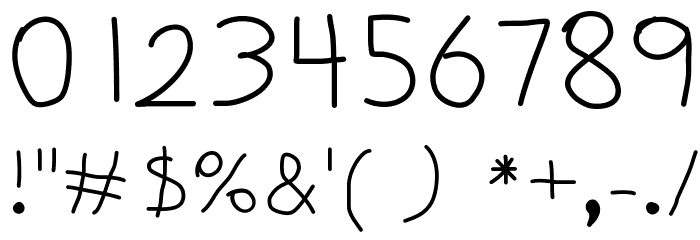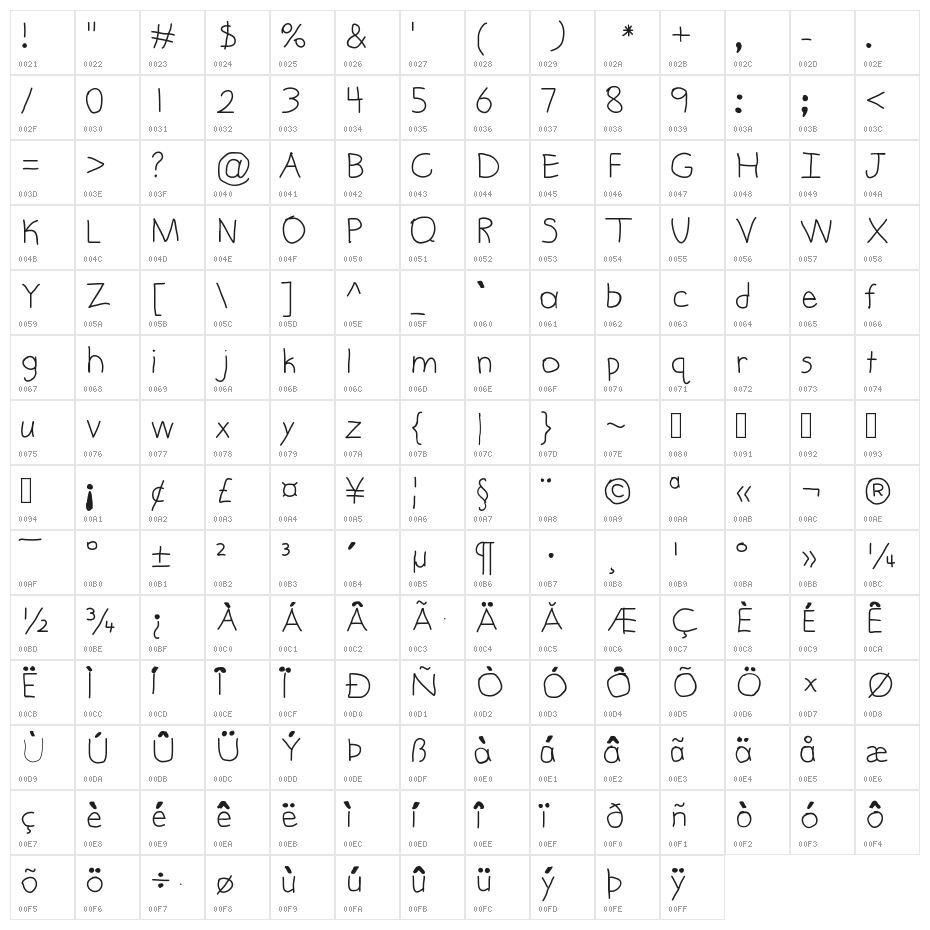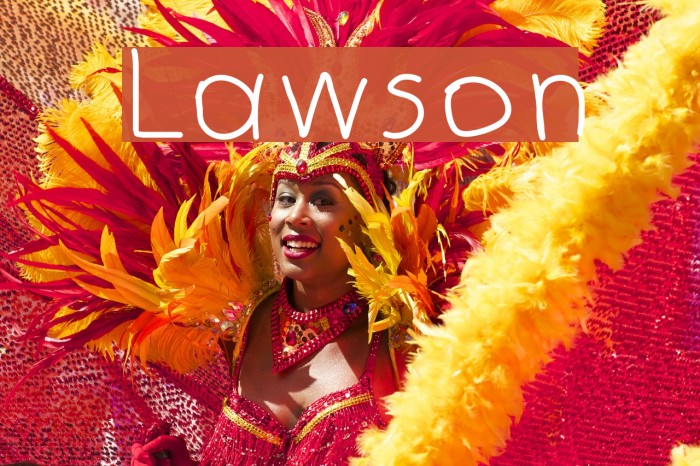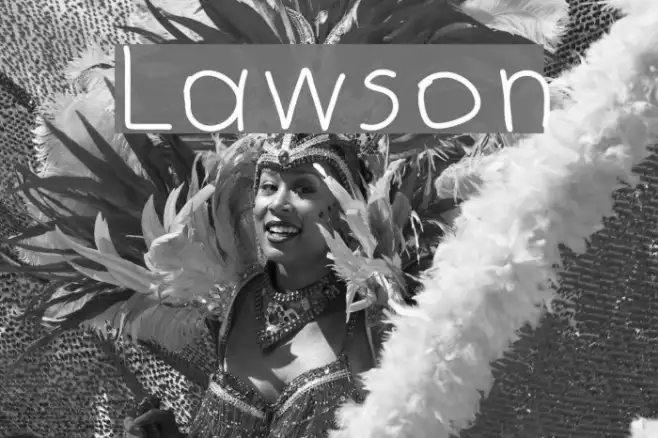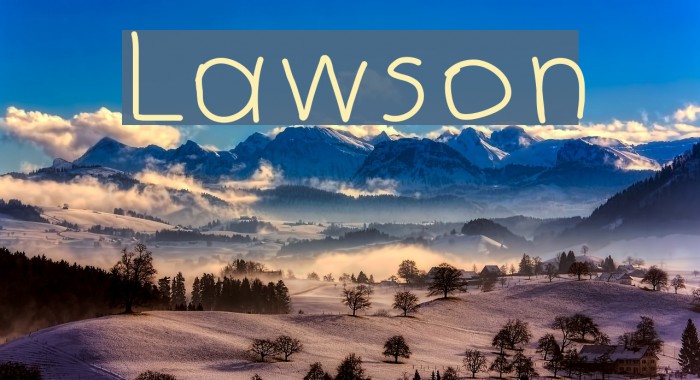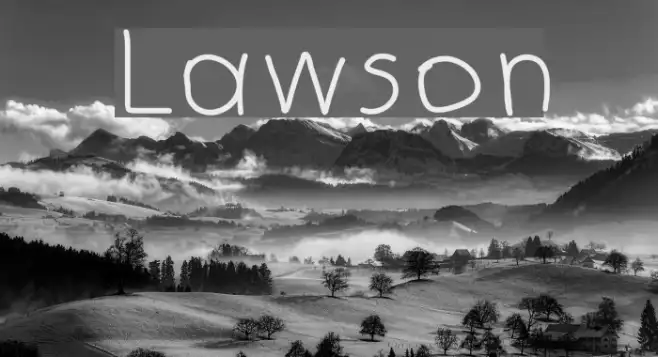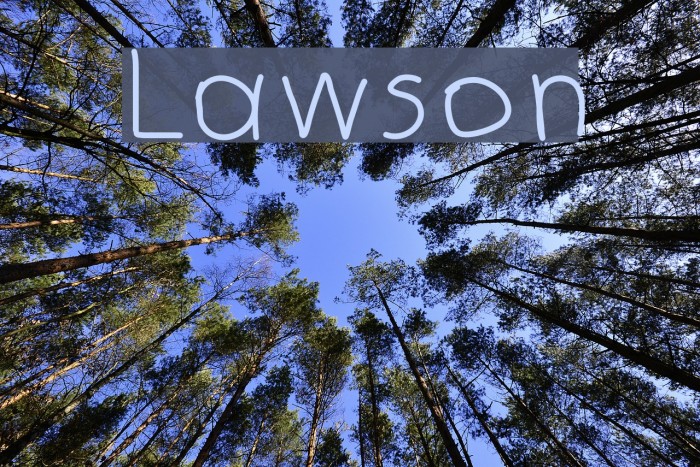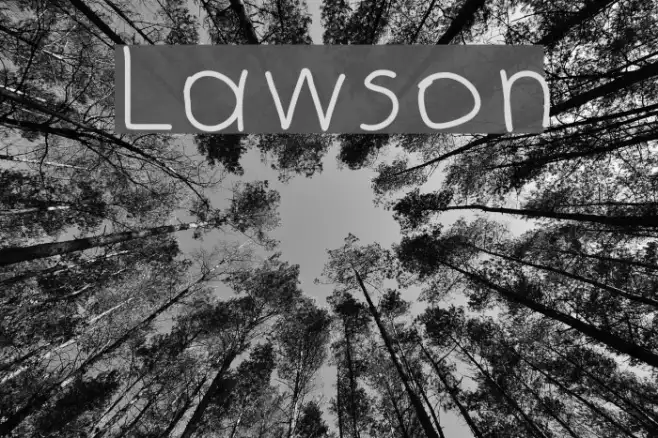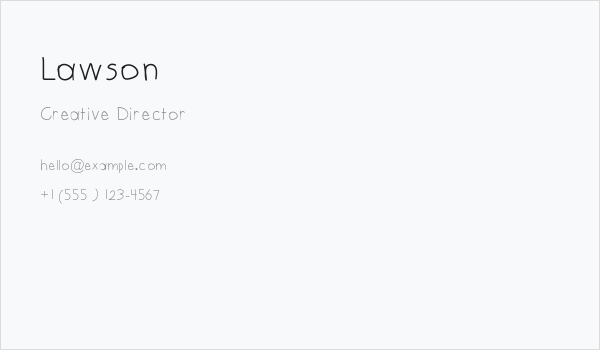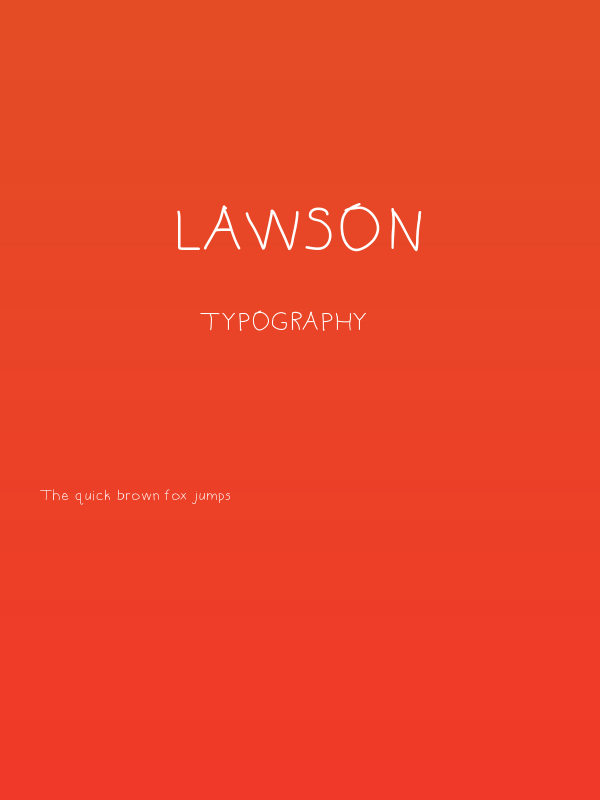
Lawson Font
Lawson Description
This font features a playful and casual handwritten style, characterized by its irregular strokes and slightly uneven baseline. The letters have a whimsical quality, with rounded edges and a natural flow that mimics the look of handwriting. The uppercase letters maintain a consistent height, while the lowercase letters vary slightly, adding to the informal charm. The numerals are clear and legible, matching the overall style of the alphabet. Special characters are included, maintaining the same playful aesthetic. This font is ideal for projects that require a personal touch, such as invitations, greeting cards, or children's book illustrations.
| Proposed Projects | Ideal for invitations, greeting cards, children's books, and casual branding. |